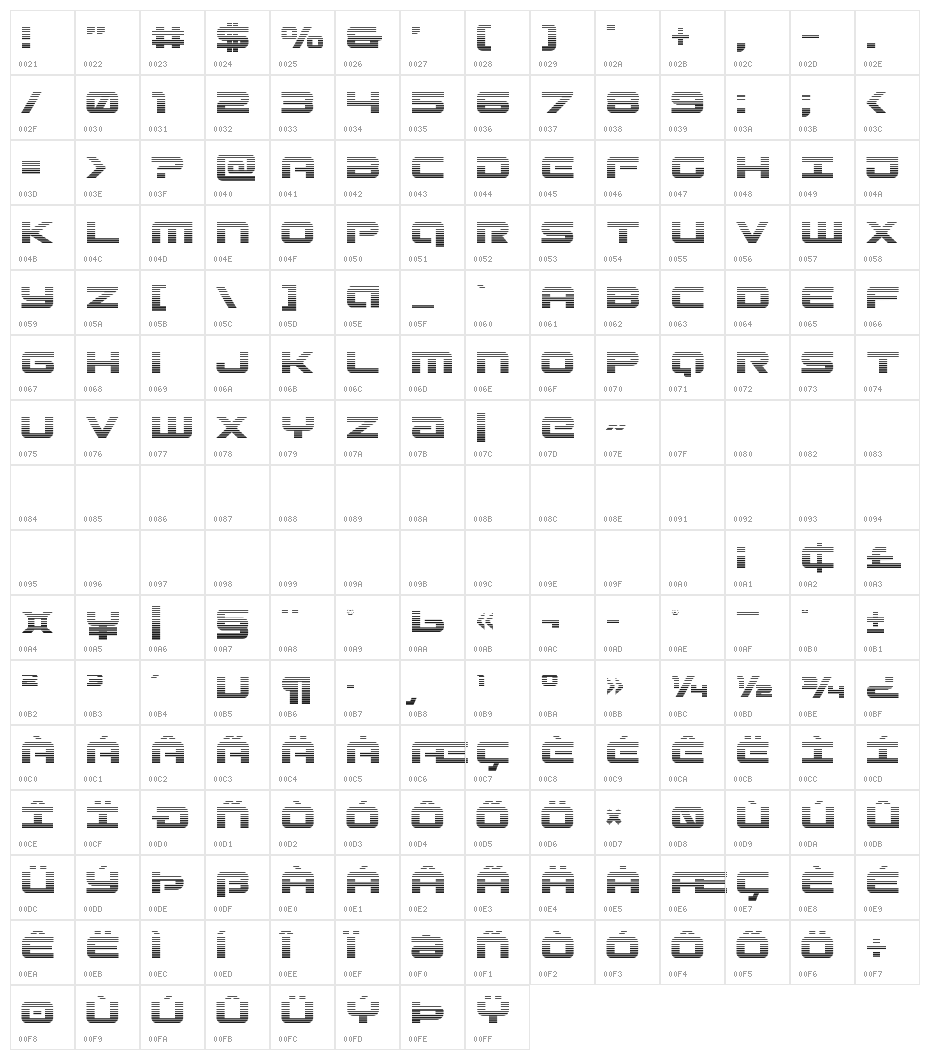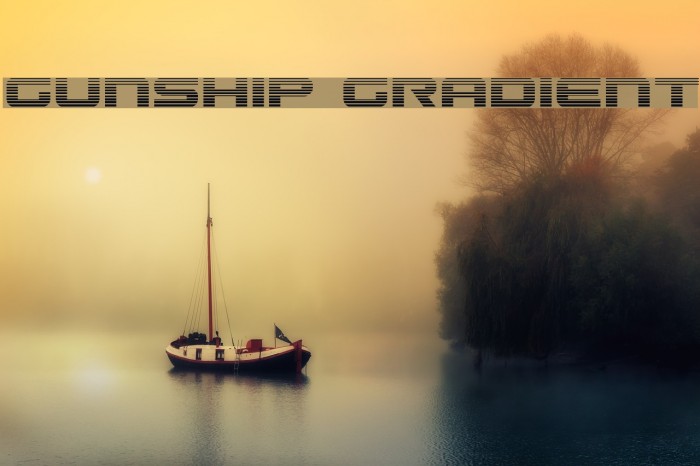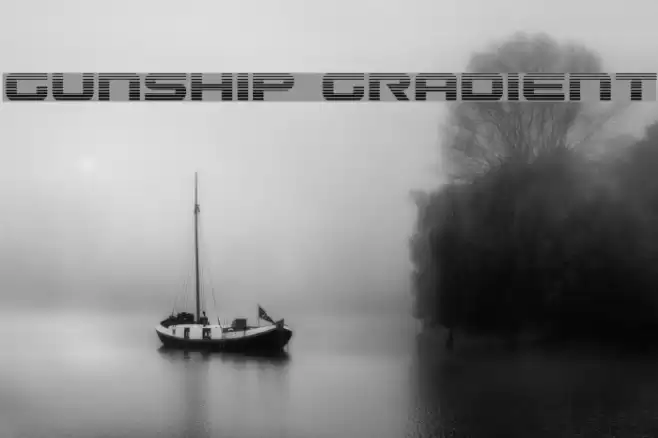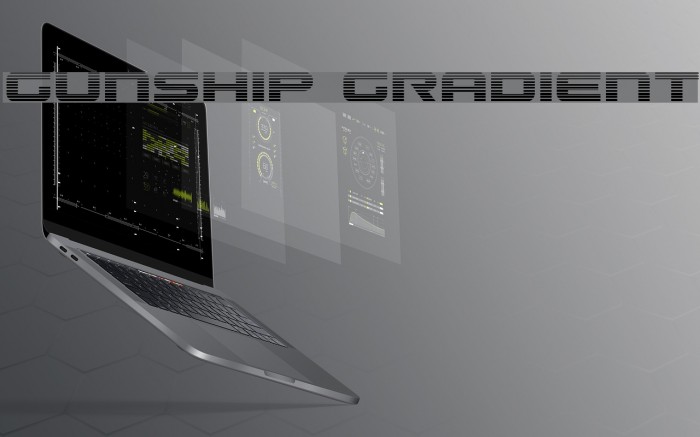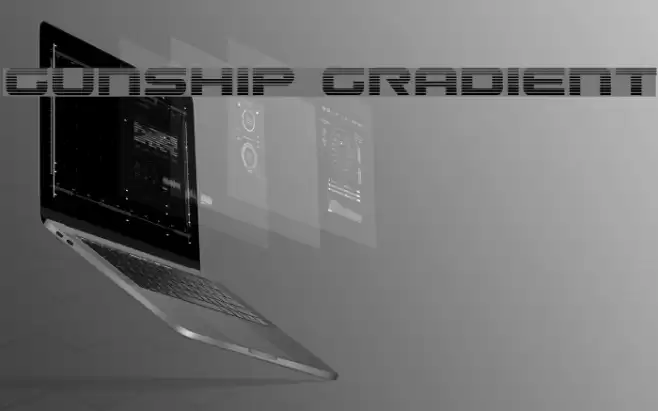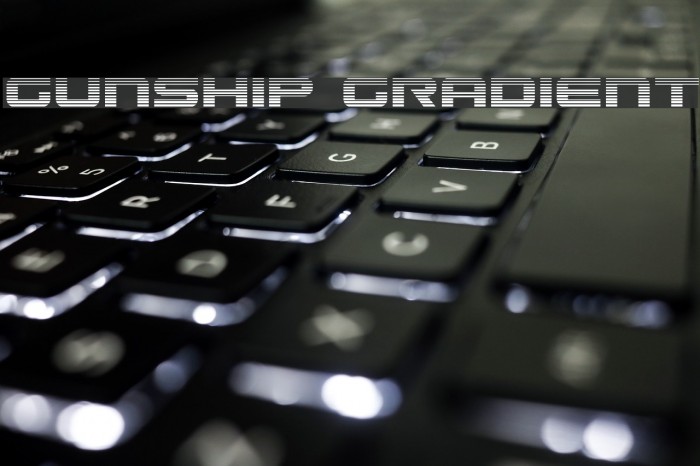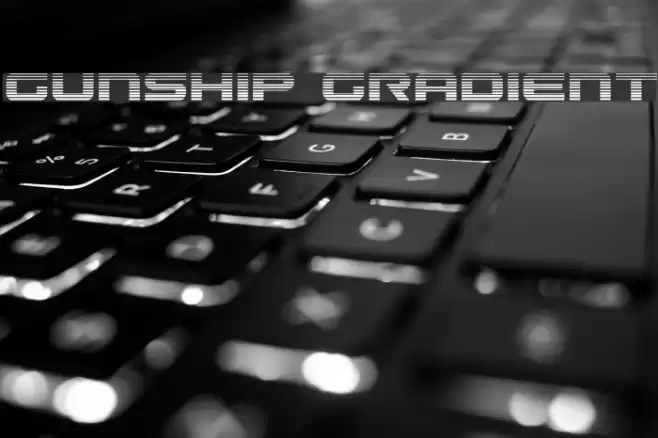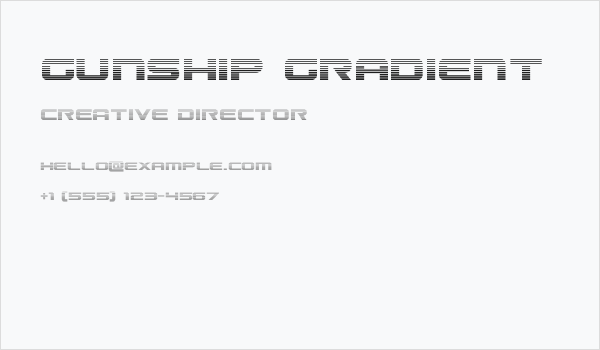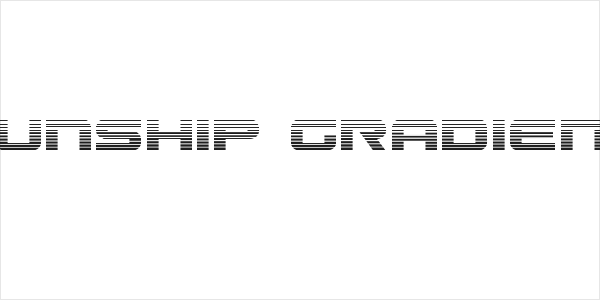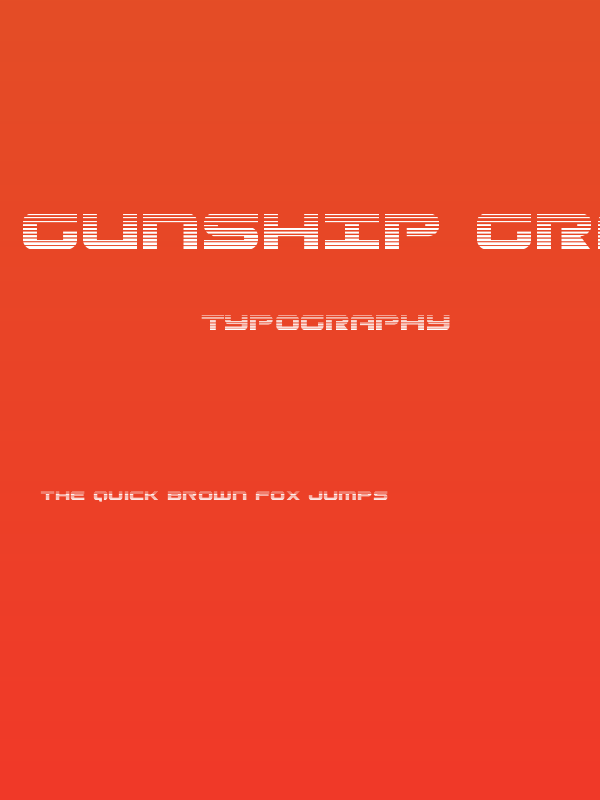
Gunship Gradient Font
Gunship Gradient Description
This font features a futuristic and mechanical design, characterized by its distinct horizontal lines that create a gradient effect across each character. The uppercase letters are bold and structured, with a geometric style that emphasizes straight lines and sharp angles. The lowercase letters maintain the same aesthetic, offering a cohesive look throughout. Numbers and special characters are designed with the same attention to detail, ensuring consistency. This font's unique style makes it stand out, ideal for projects that require a modern and tech-inspired look.
| Proposed Projects | Ideal for sci-fi themed designs, tech branding, video game titles, and futuristic posters. |